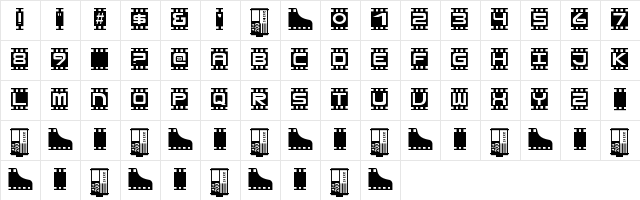
HourPhoto Regular
Design Context for HourPhoto
HourPhoto is a composed and adaptable typeface that performs quietly and consistently across a wide range of design contexts.